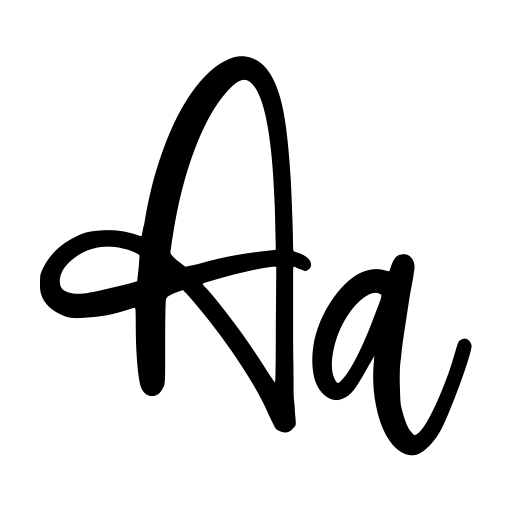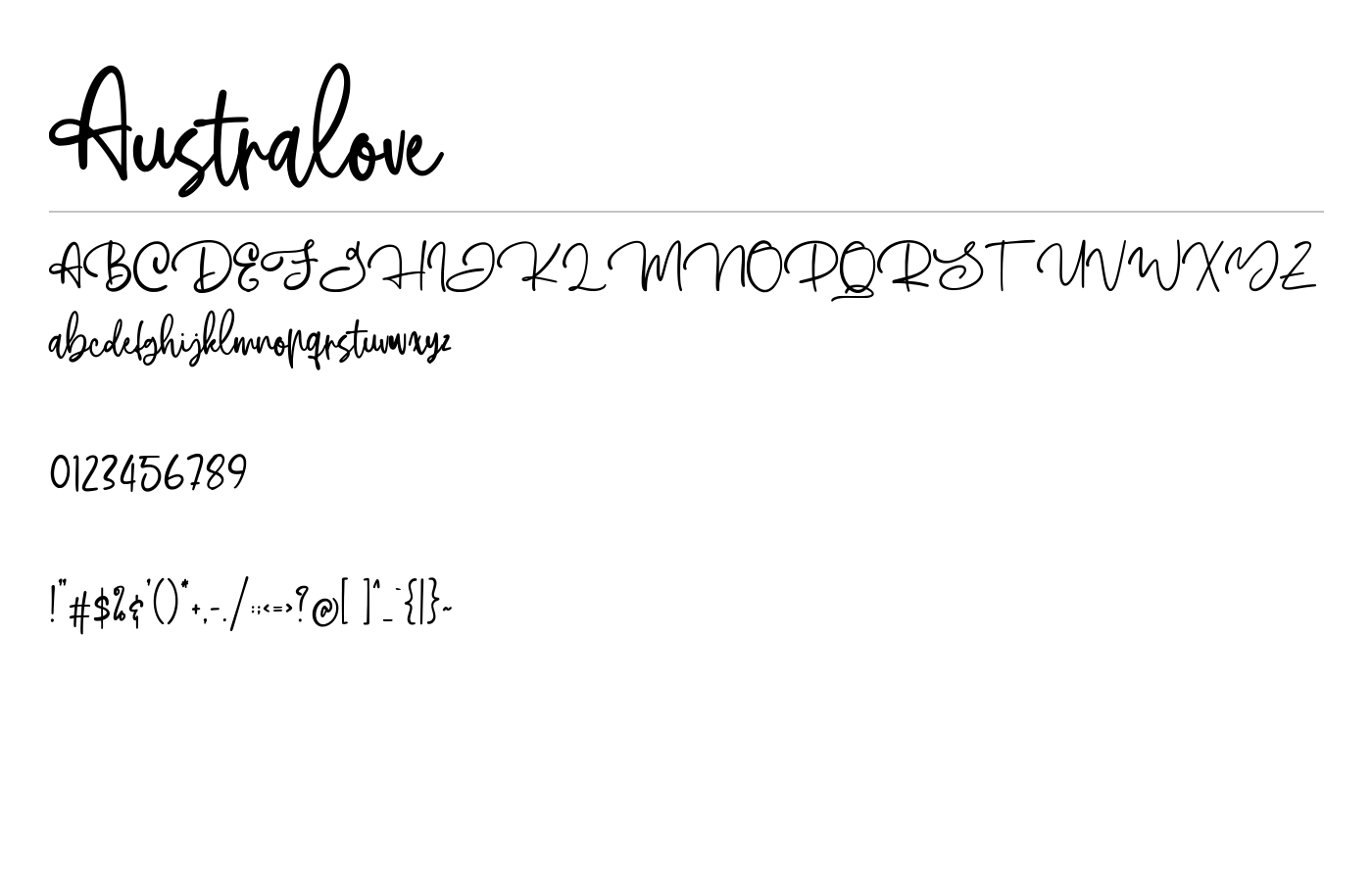
Australove is a playful and elegant handwritten script font with a casual, flowing style that combines smooth curves and unique character shapes. Its light weight and airy structure make it perfect for adding a friendly, personal touch to branding, invitations, and creative projects. This font works beautifully for designs that seek a warm, approachable, and stylish vibe.
Australove Font
About Australove Font
| Font family | Australove Font |